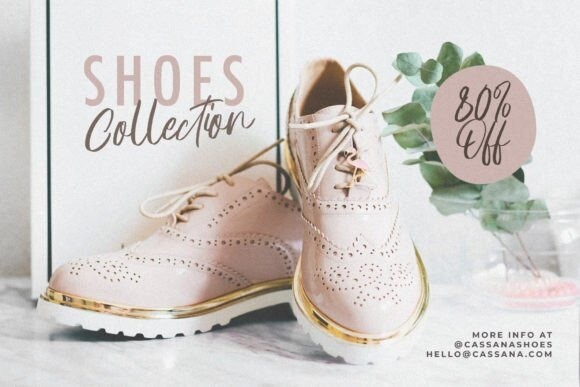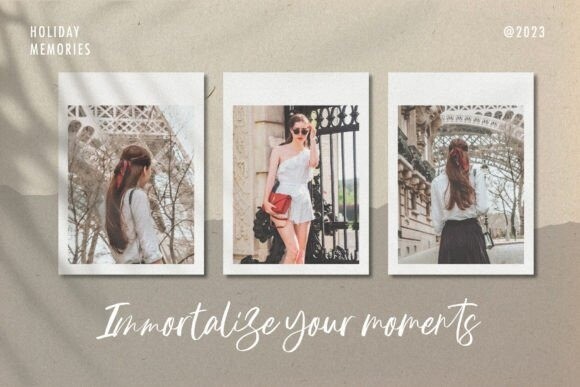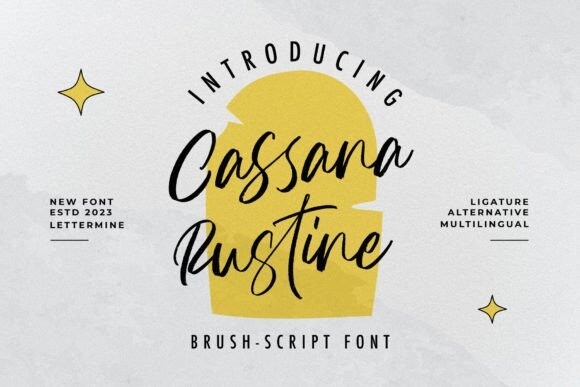
Cassana Rustine Font
Designer: Lettermine
Cassana Rustin Font is a captivating and versatile elegant Script font designed to add a touch of elegance and modernity to any project. Whether you’re designing for the fashion industry, food industry, or various celebratory occasions like weddings, birthdays, or engagements, this font is your perfect companion.